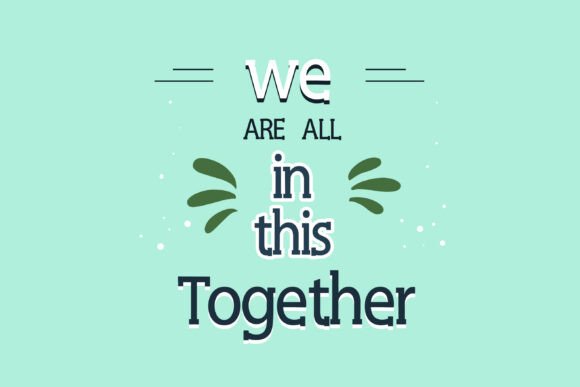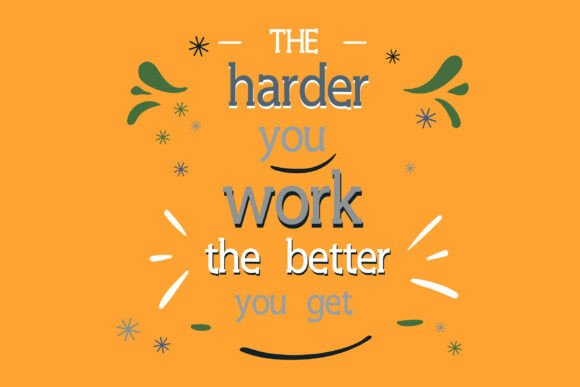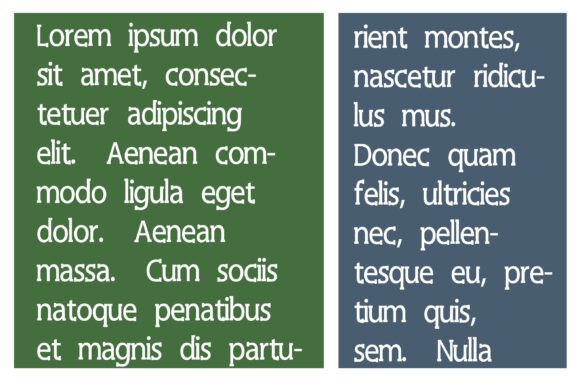
Introduction to Pn Cantaloupe Fn Font
Have you ever stumbled upon the perfect font while working on a creative project and felt an instant spark of inspiration? That’s exactly what happened to many designers when they discovered the Pn Cantaloupe Fn Font – a clean and friendly serif typeface that effortlessly blends classic structure with a refreshing modern softness.
This versatile font is a valuable resource for designers, offering a unique combination of elegance and warmth that brings clarity, character, and a sun-kissed charm to any design. With its smooth rhythm and approachable tone, Pn Cantaloupe Fn Font is ideal for food packaging, organic product branding, editorial layouts, and playful headlines. Whether you’re working on a high-quality design project or need a free download for a creative endeavor, this font is sure to be a standout design resource.
- Designed to be highly legible, with a clear and crisp font that is perfect for body text and headings.
- Perfect for designers looking for a creative and eye-catching font to add a pop of color and personality to their design projects.
Honest Review: Pn Cantaloupe Fn Font
One of the standout features of Pn Cantaloupe Fn Font is its high quality. The font is crisp and clear, with a transparent background that makes it easy to work with. It’s perfect for creative projects that require a touch of elegance and sophistication.
Here are some of the things that work well with Pn Cantaloupe Fn Font:
- ✨ Unique and stylish design that sets it apart from other fonts
- ✨ High quality and crisp lines make it perfect for printing
- ✨ Transparent background makes it easy to work with
- ⚠️ Limited character set, which may not be suitable for extensive text-based projects
- ⚠️ Not as versatile as some other fonts, may not work well in certain design contexts
Overall, I’m impressed with Pn Cantaloupe Fn Font. It’s a great addition to my design library, and I’m excited to see how I can use it in future creative projects.
The Pn Cantaloupe Fn Font is a versatile font that can be used in a variety of creative projects, including branding, marketing materials, and digital design. Its high-quality design and transparent background make it an ideal choice for designers